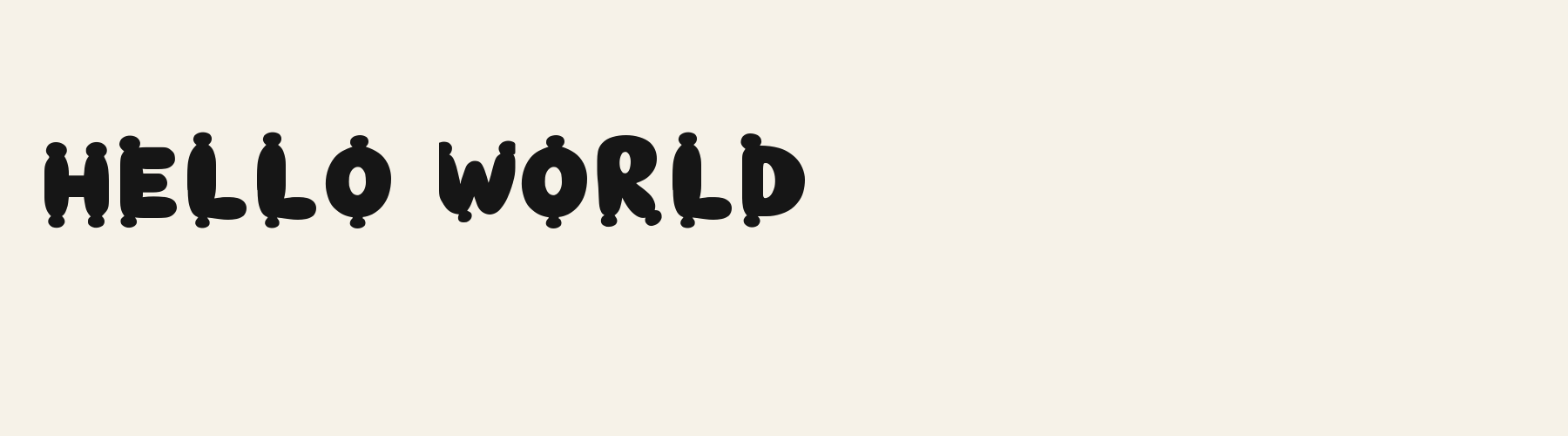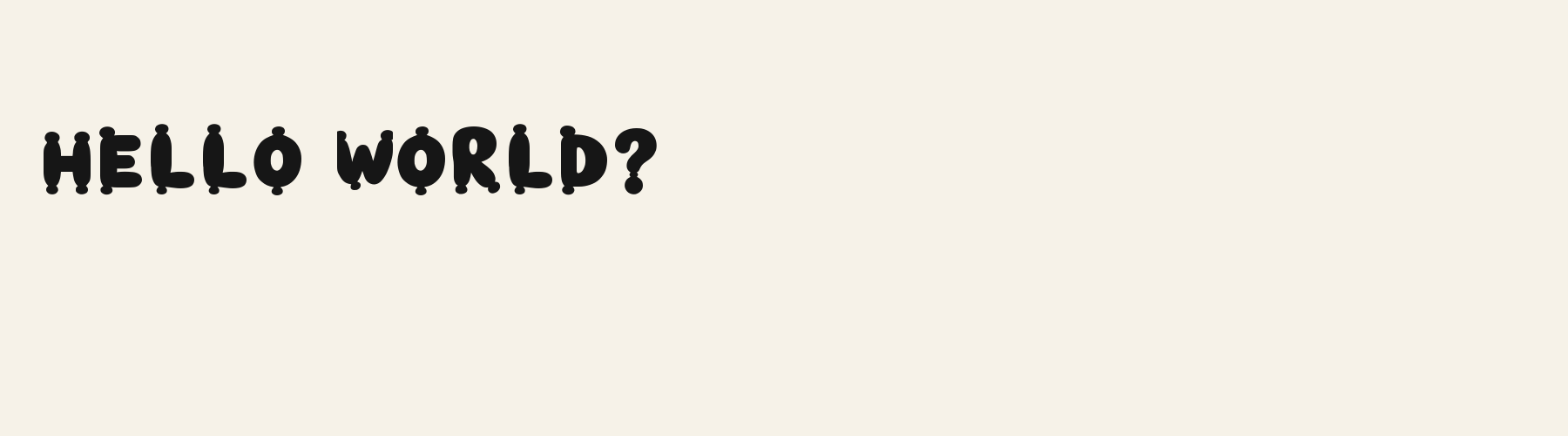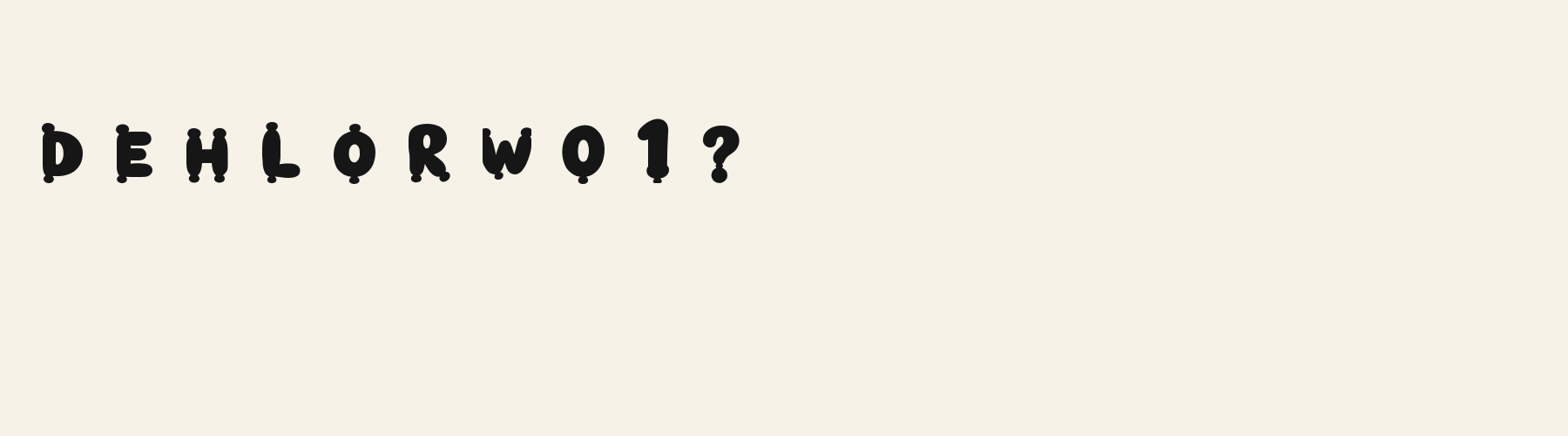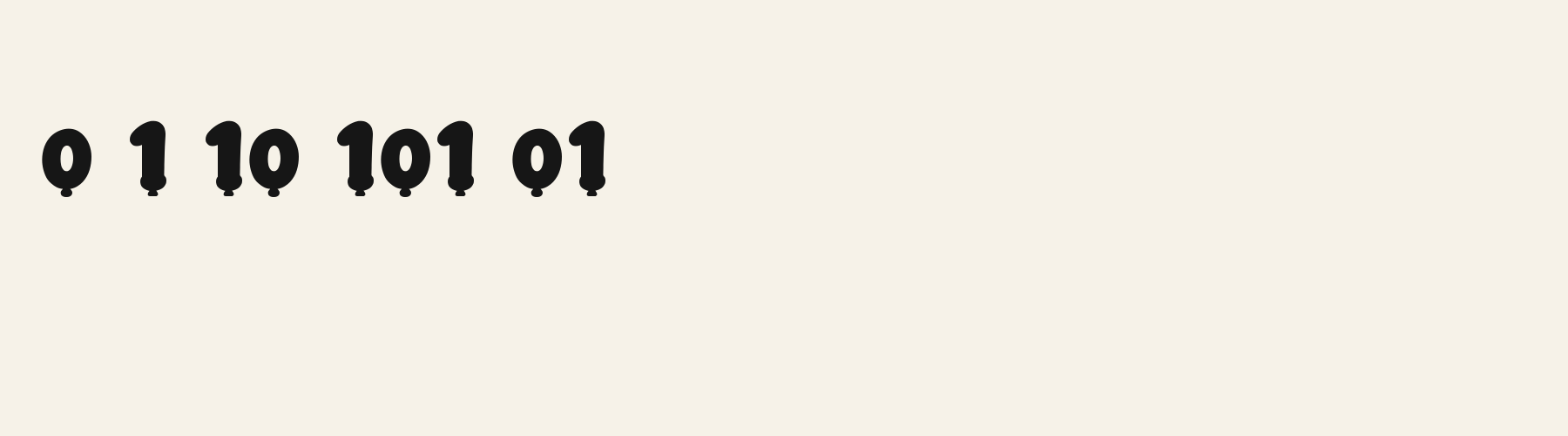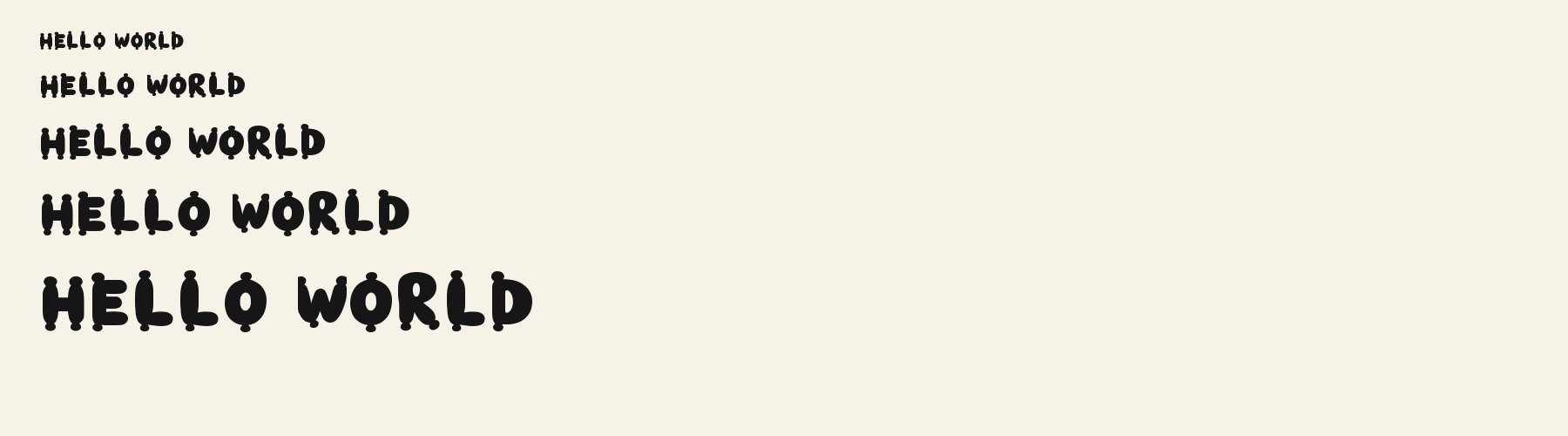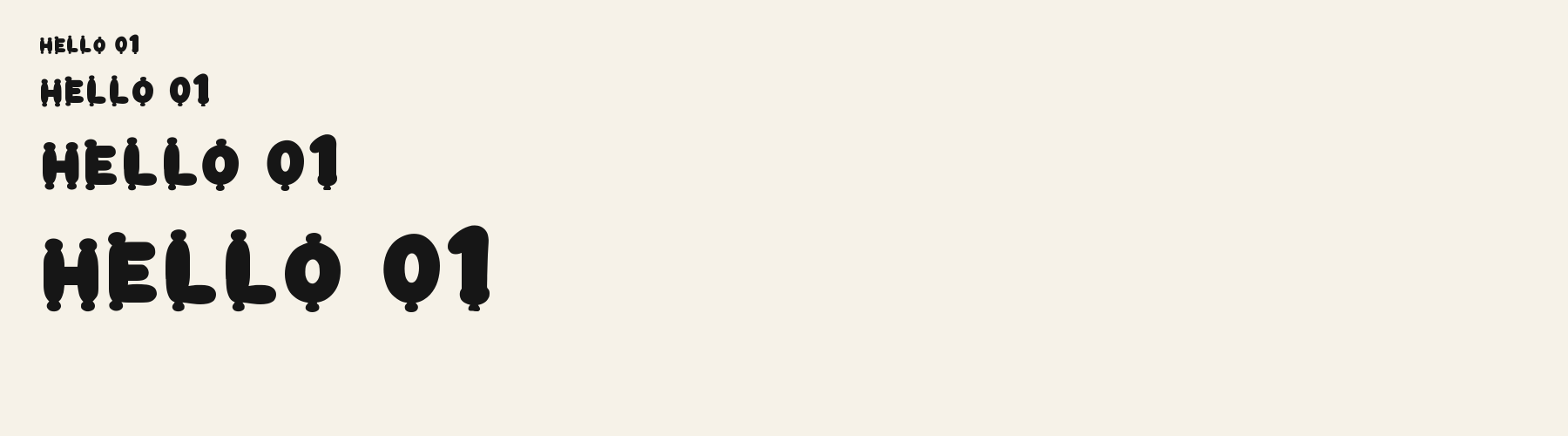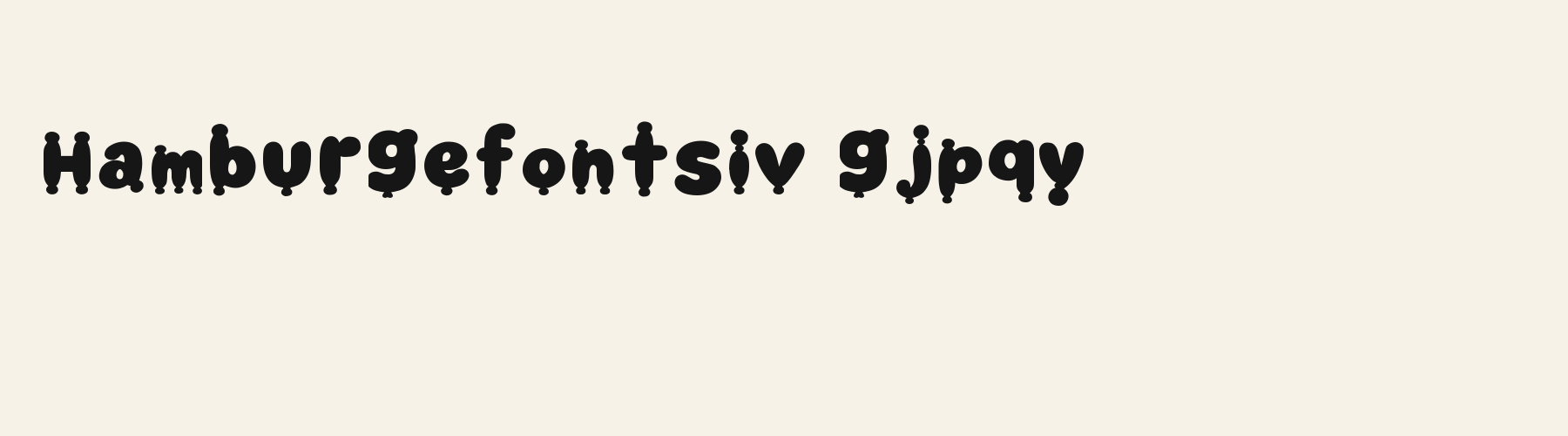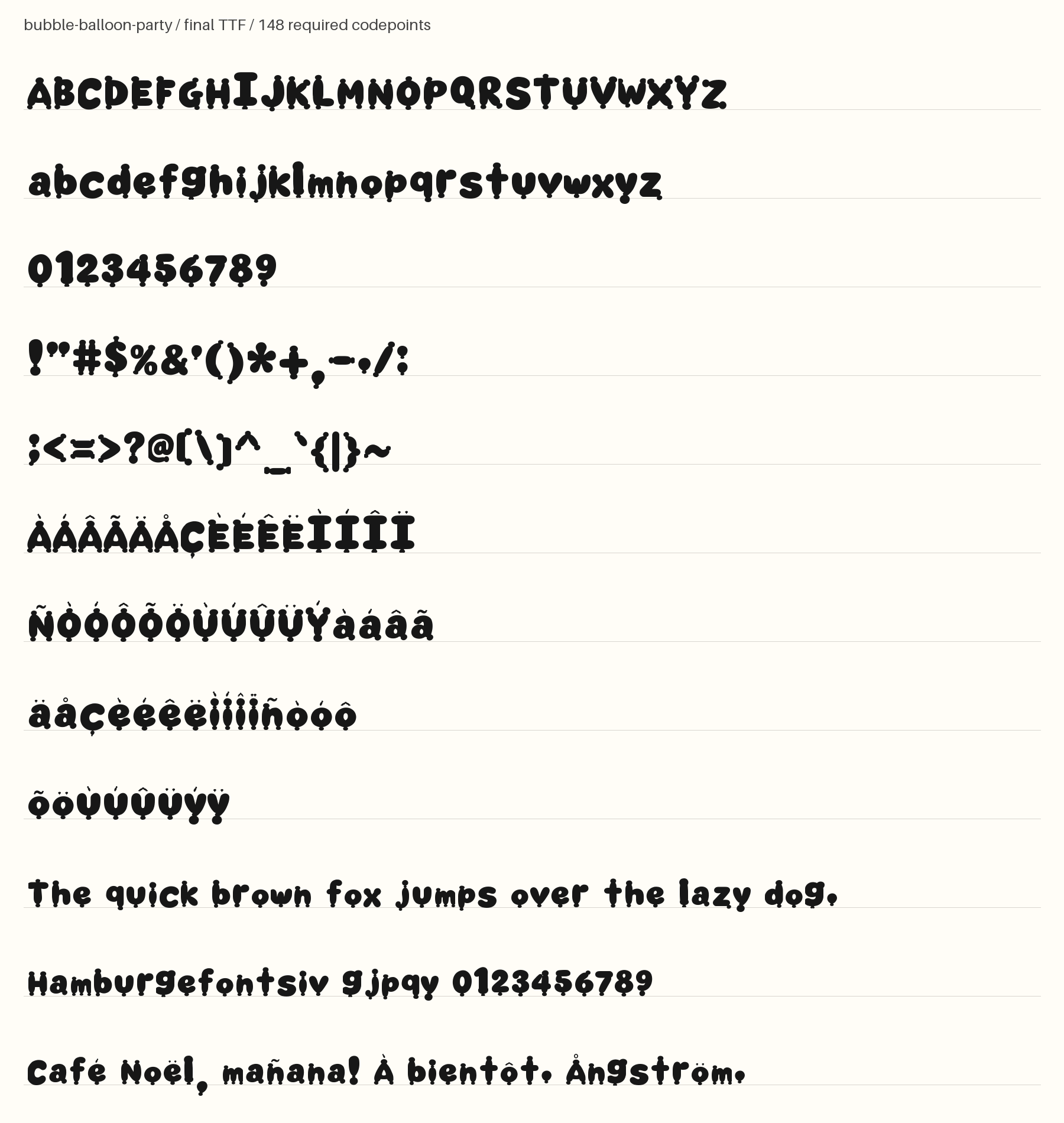
Display · 1 style · 148 glyphs · Version 0.1.1
Bubble Balloon Party is a birthday banners, party invitations and children’s event titles. inflated rounded masses, narrow joins and open counters sized for short display words. Best for birthday banners, party invitations and children’s event titles.
Includes all 95 printable Basic Latin characters and 148 glyphs in total.
Verified language coverage: English (Basic Latin)